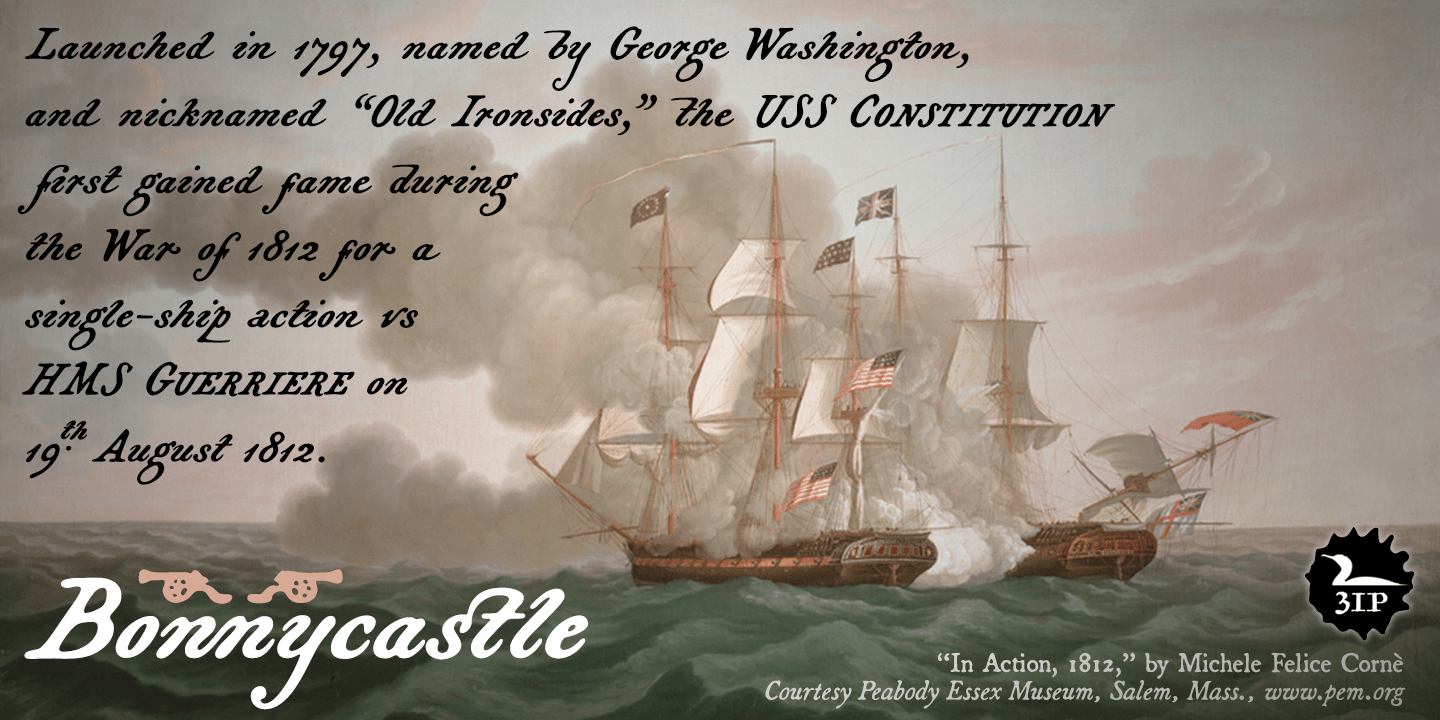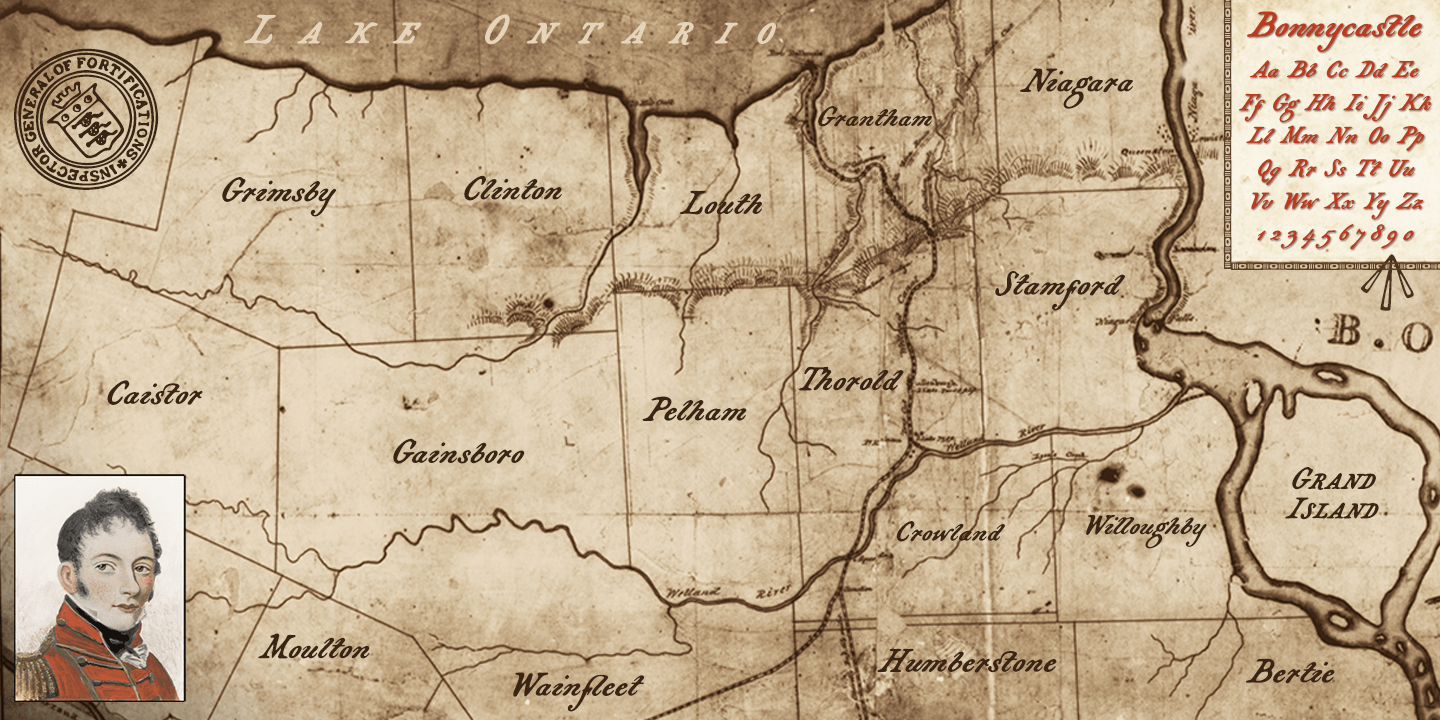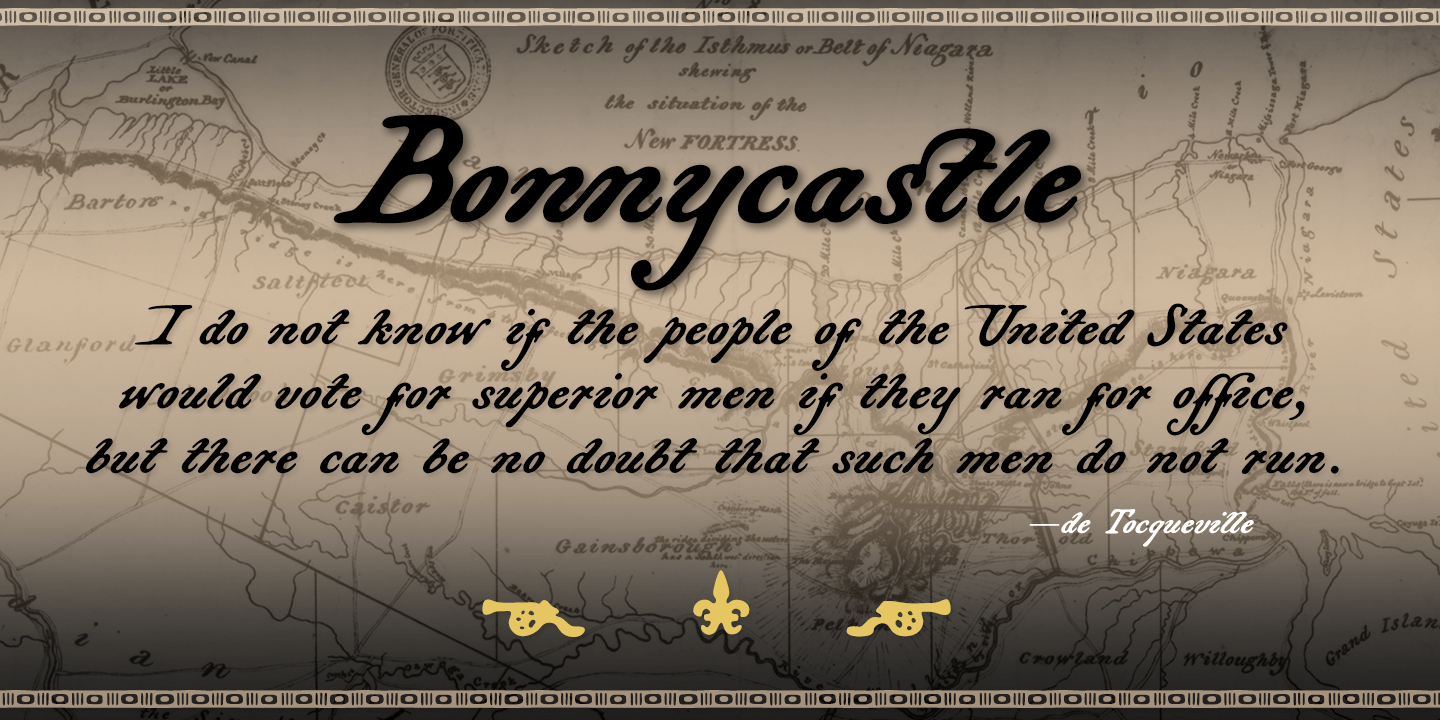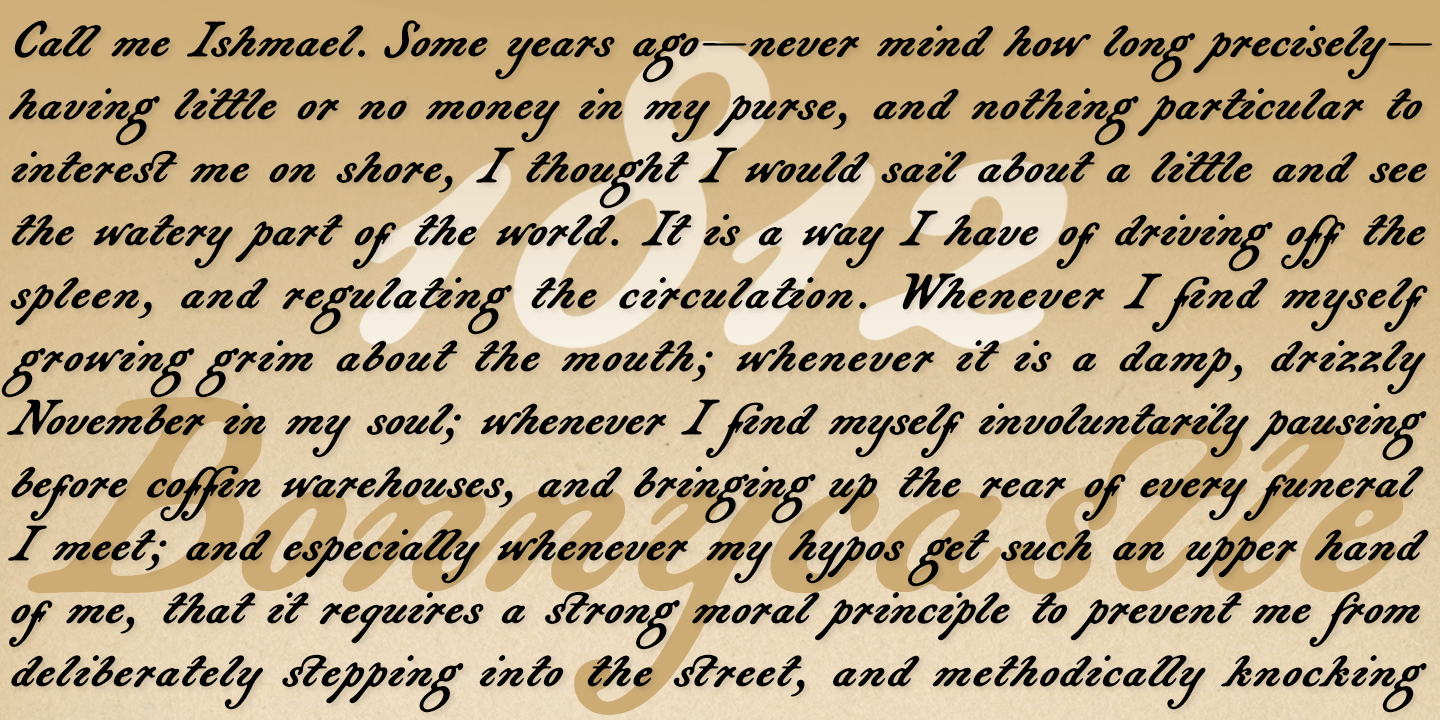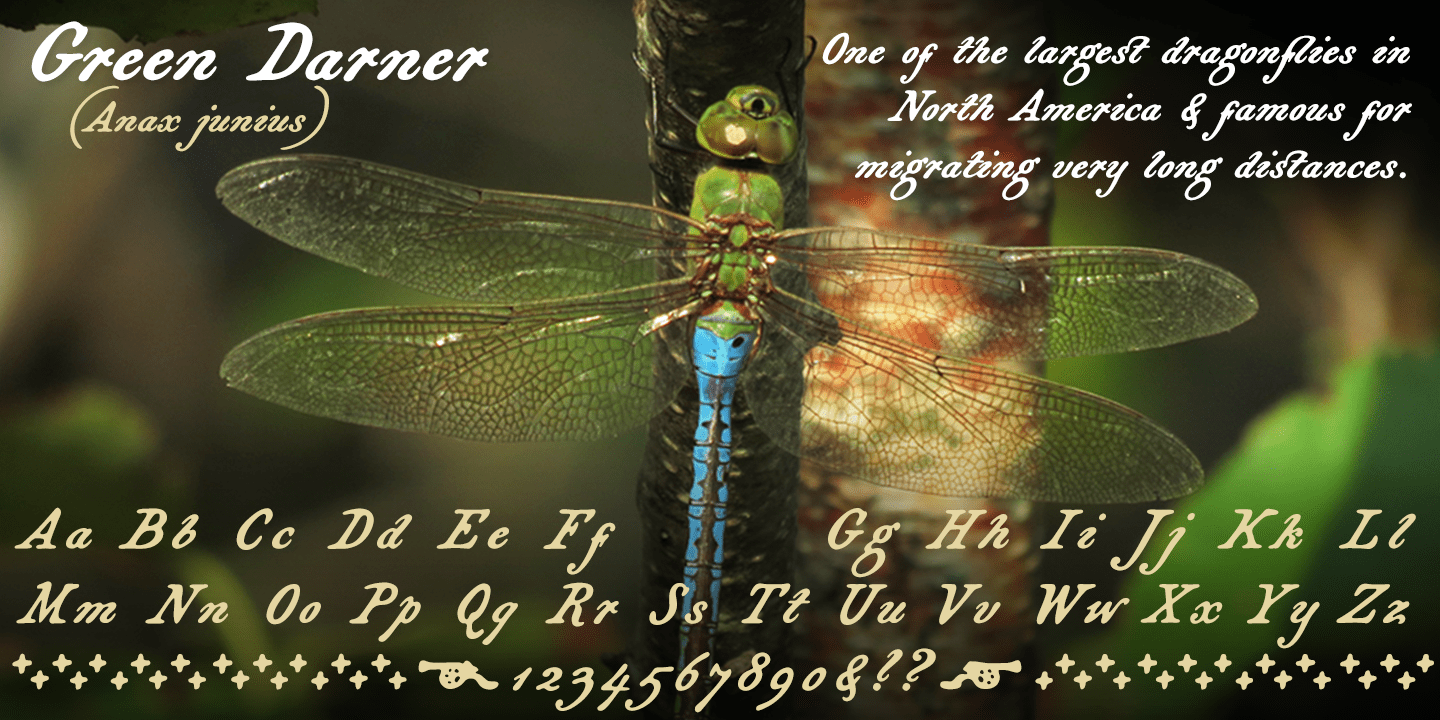
Bonnycastle
Sir Richard Henry Bonnycastle (1791?1847) was an English officer and military engineer who served in the War of 1812 and ultimately settled in Canada. I stumbled upon copies of some of his charts and maps, became infatuated with the hand-lettered titles?and the result is the eponymous Bonnycastle. The font has a bold weight and an italic style but is intended as an eye-catching standalone, evocative of its period in history. Use as a titling face on branding materials, event posters, book covers, presentation graphics, historical illustrations, and the like.